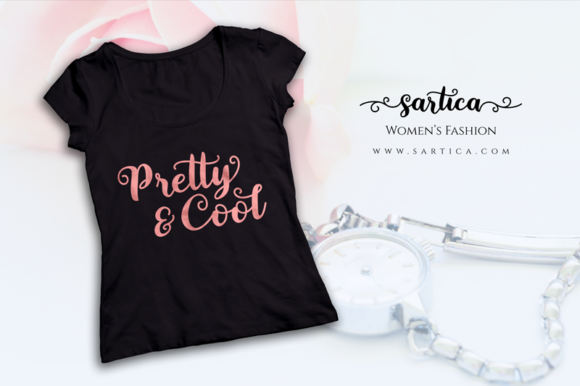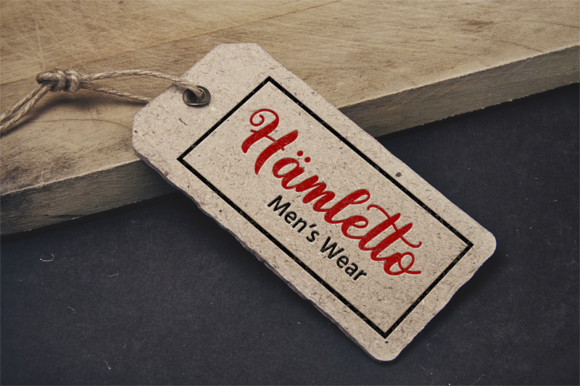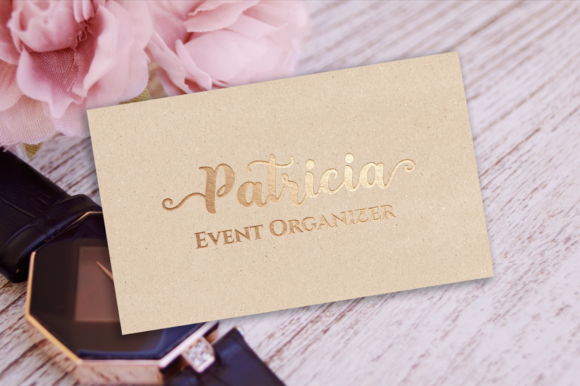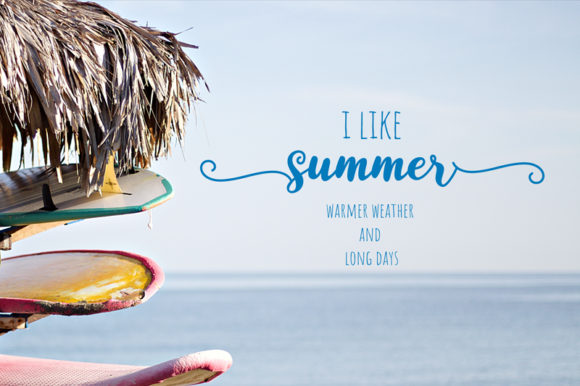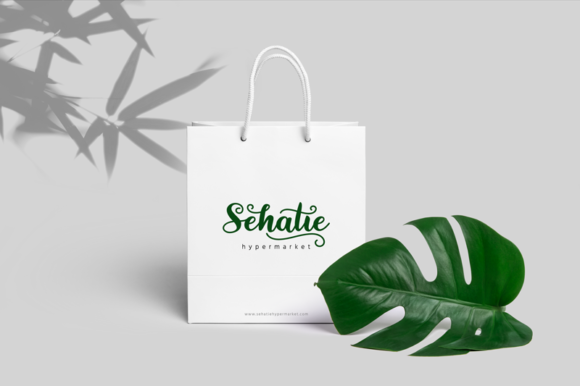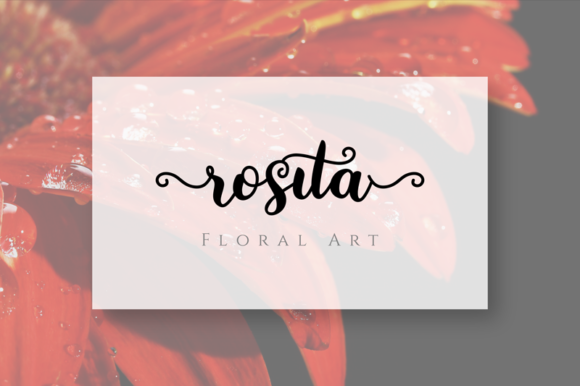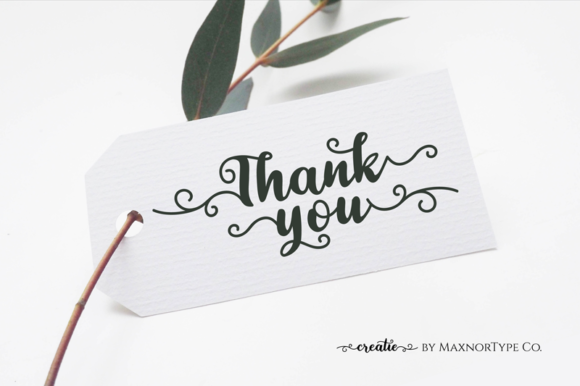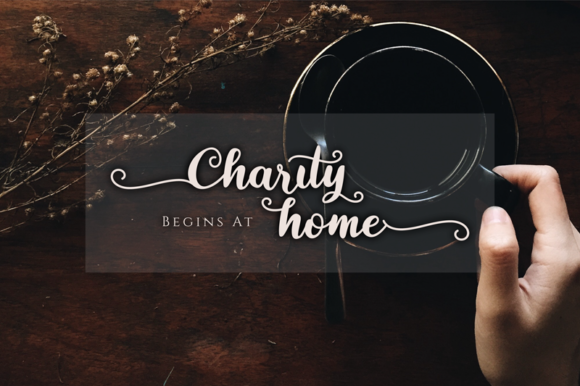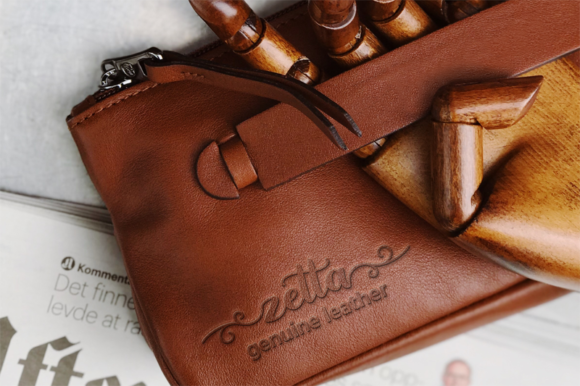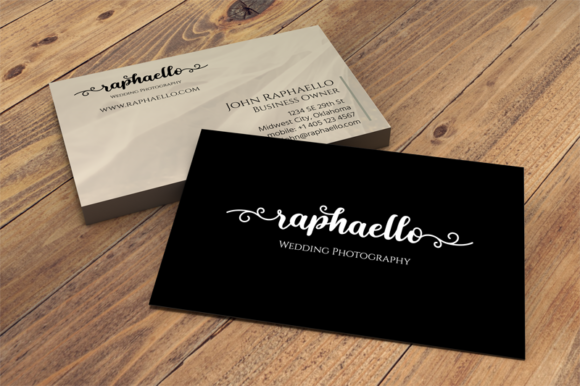
Creatie Font
About Creatie Font
Creatie is a lovely modern script font! This beautiful hand-lettered script font includes multilingual support, ligatures, contextual alternates, stylistic alternates, swashes, and wings.